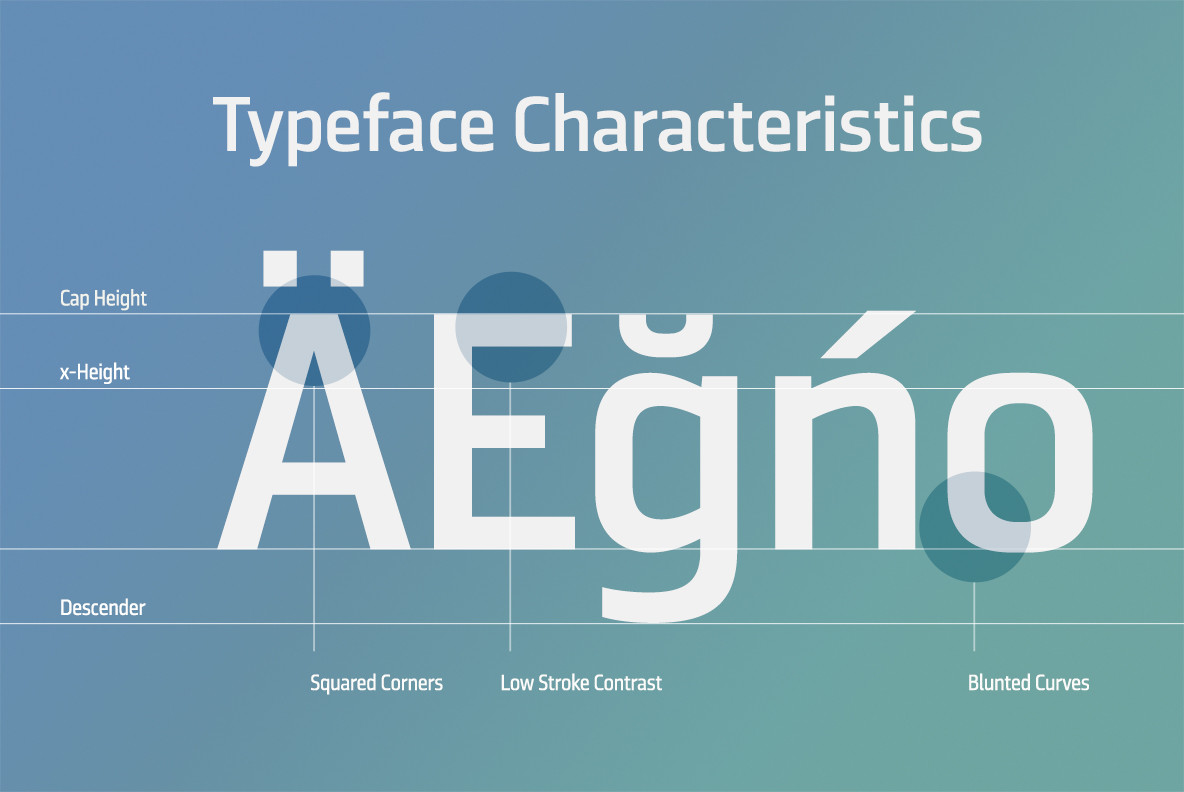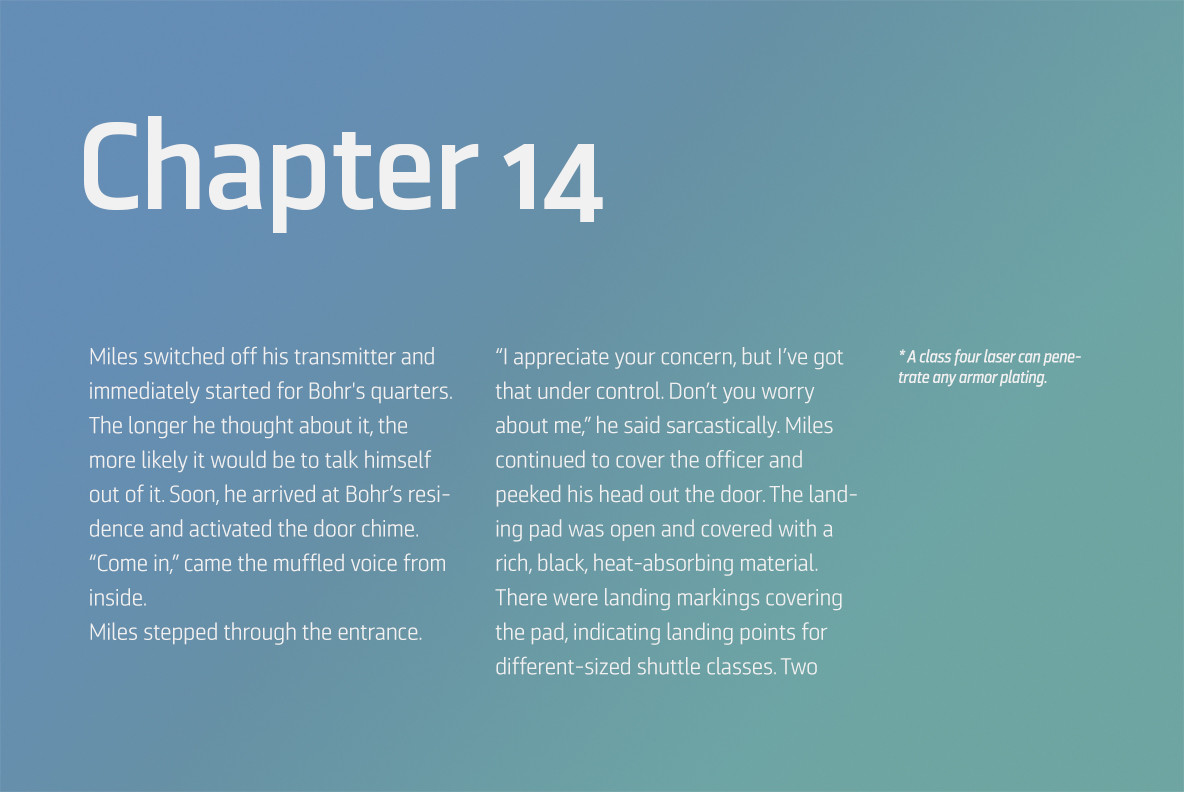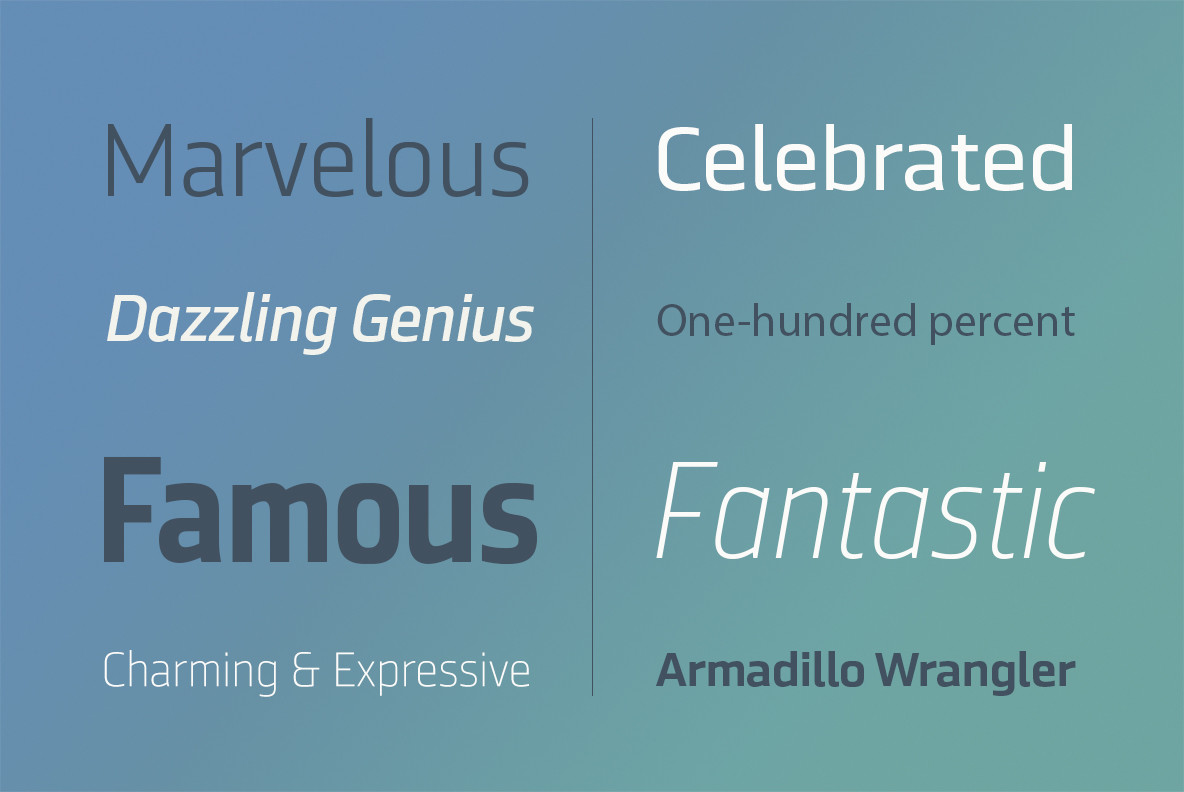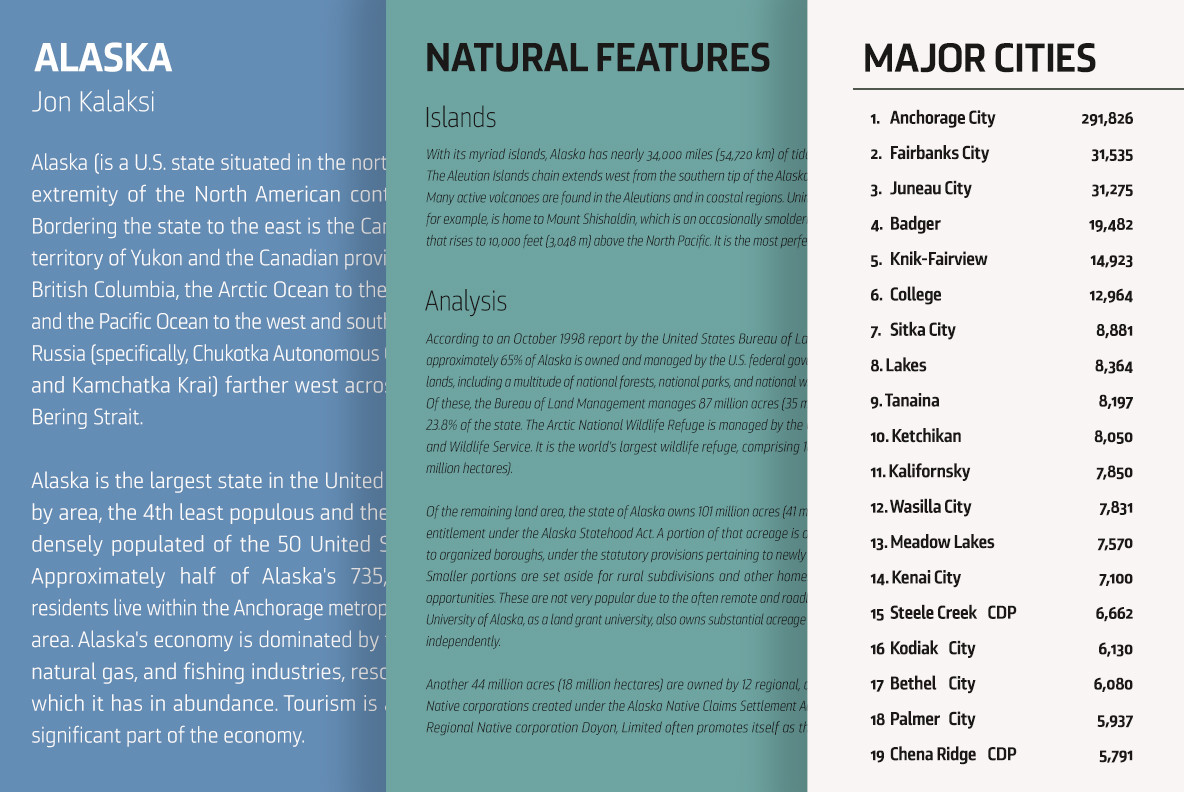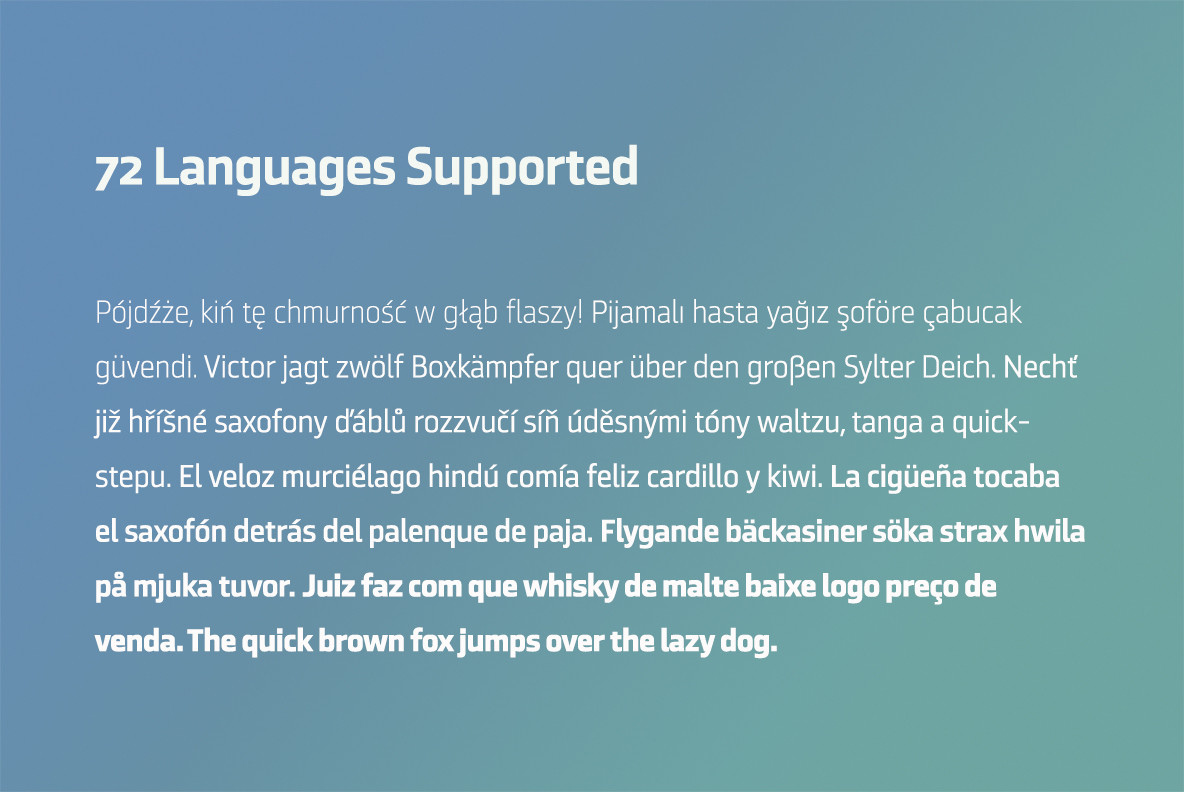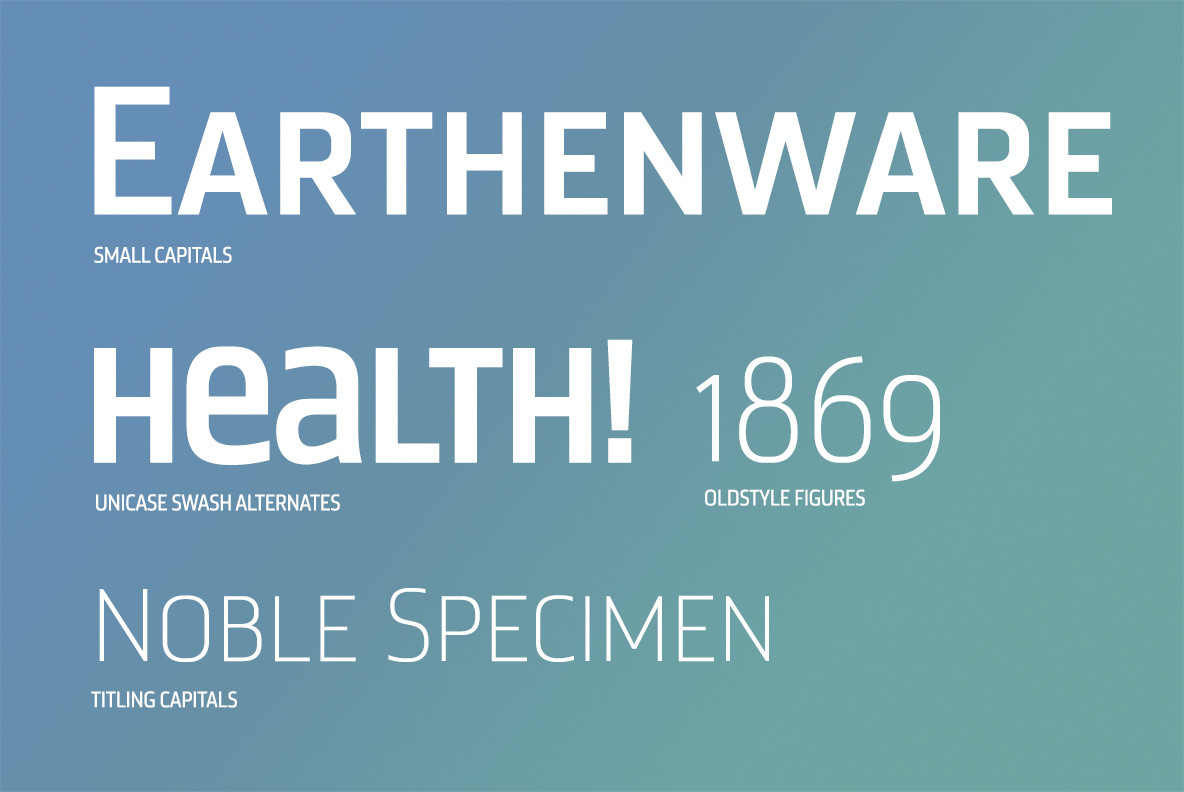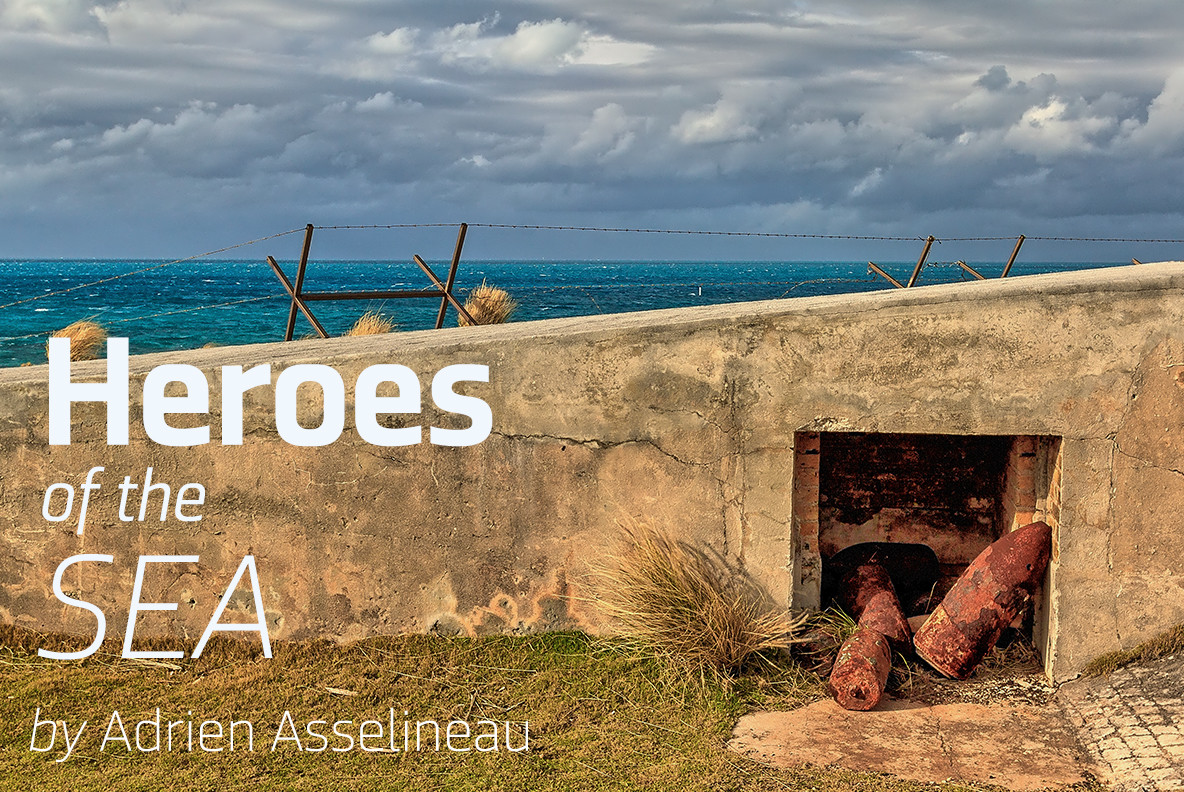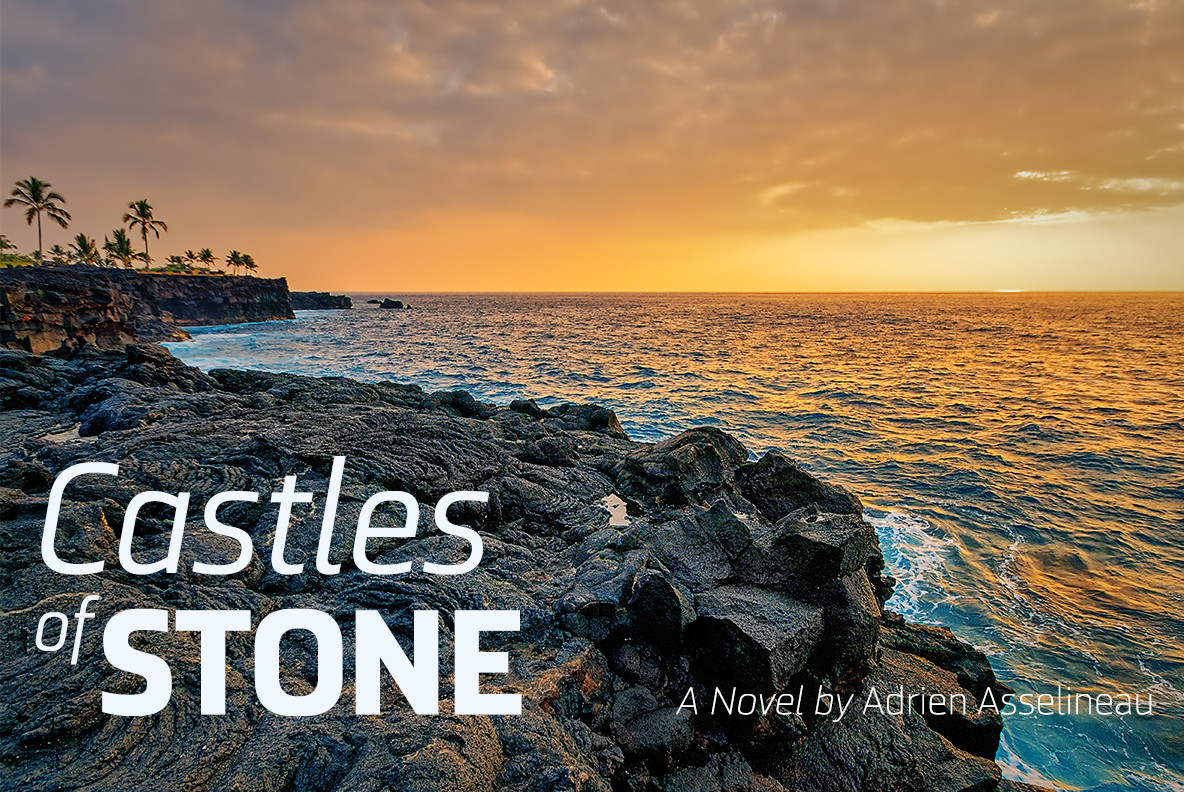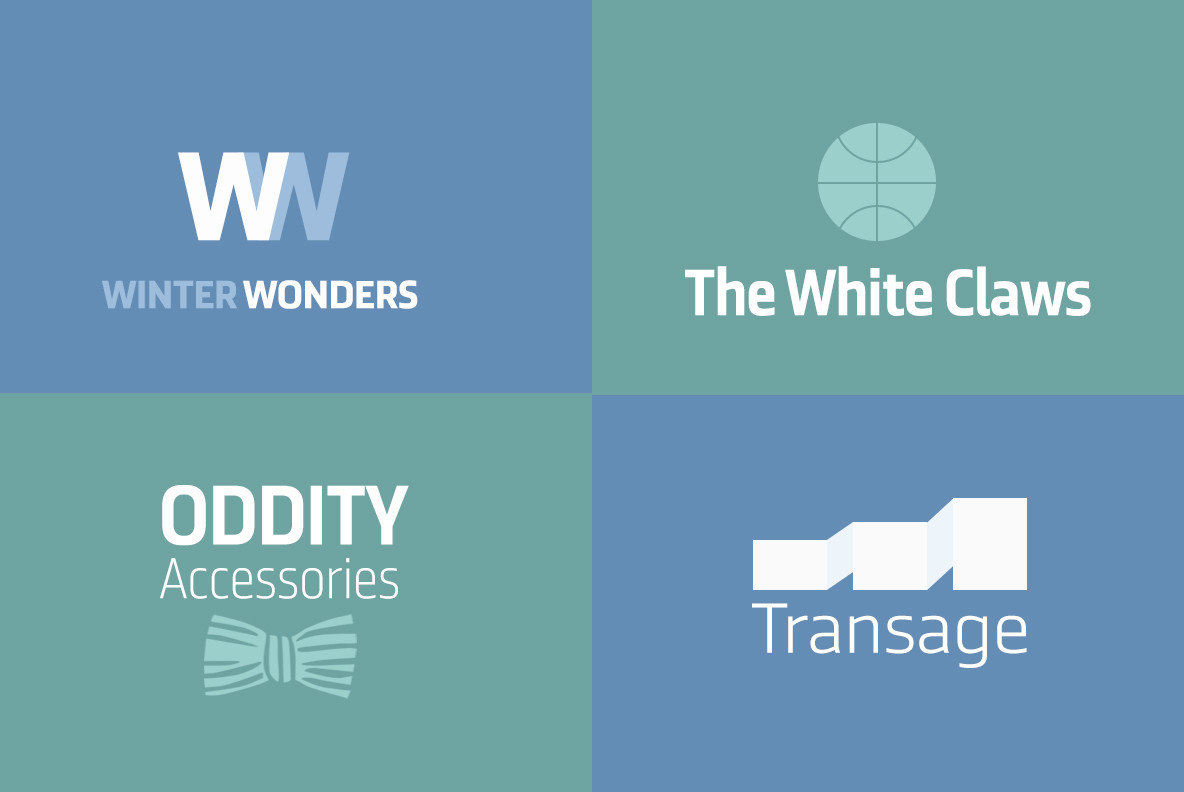
Ranelte Font
Thinking about it again, a classic may never go out of style, but that doesn’t mean you can’t improve on it. A little adjustment can have a beauty all its own. So discover the tuning of Ranelte, and enjoy all the new things you can do with a classic.